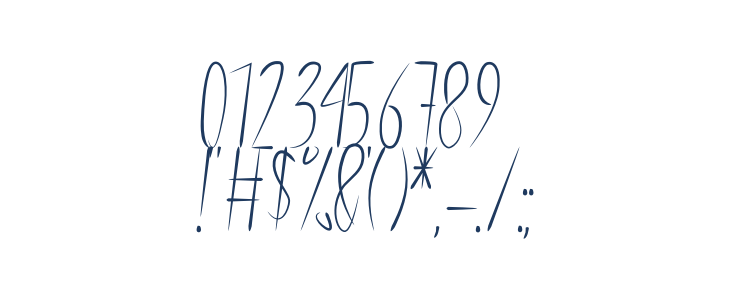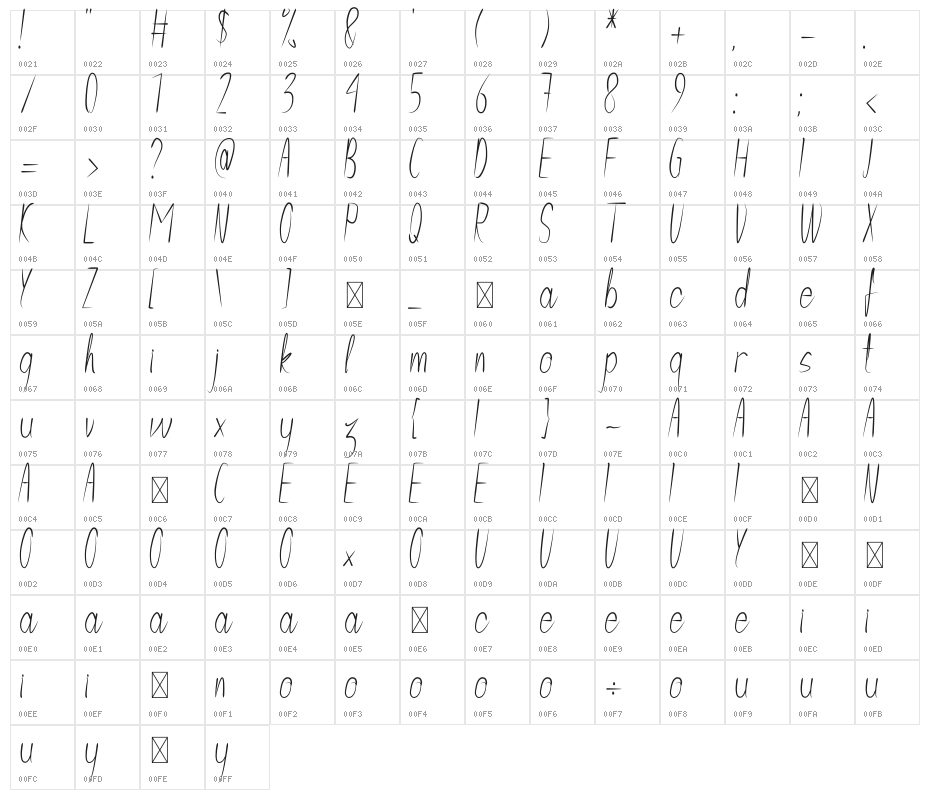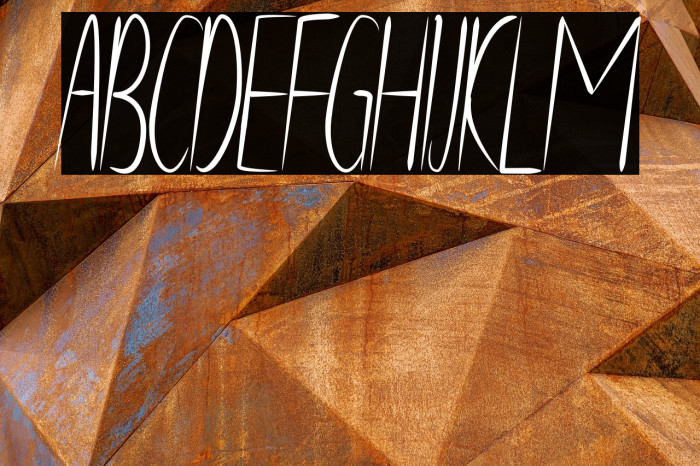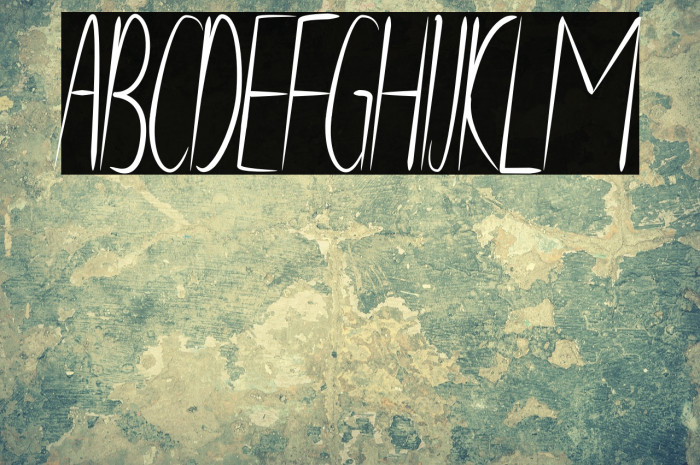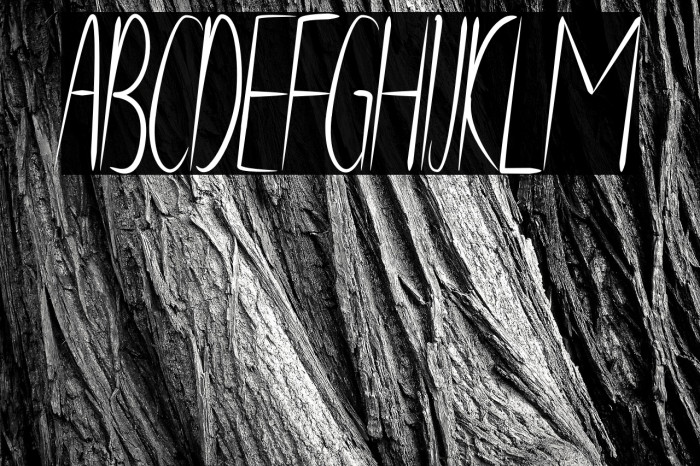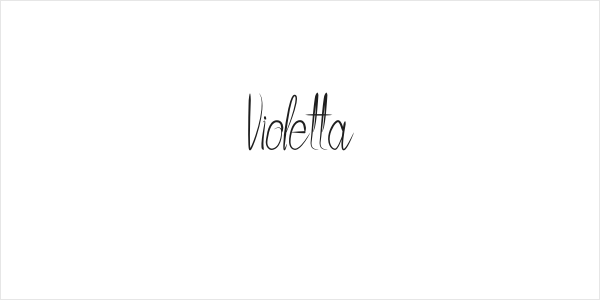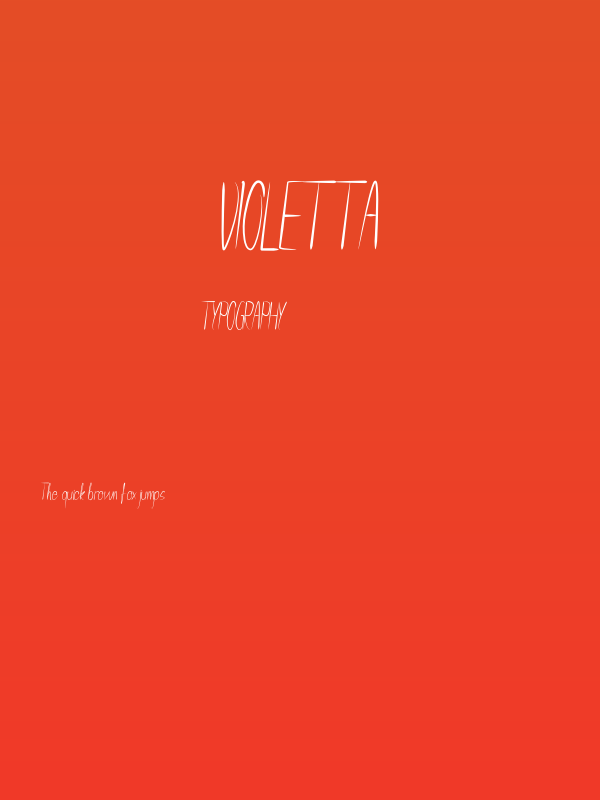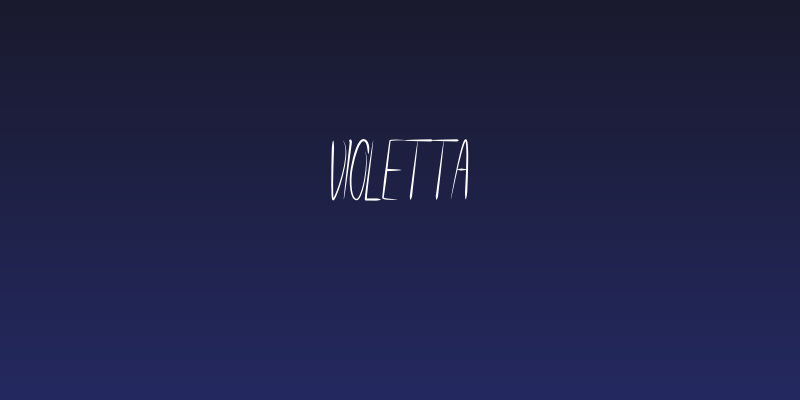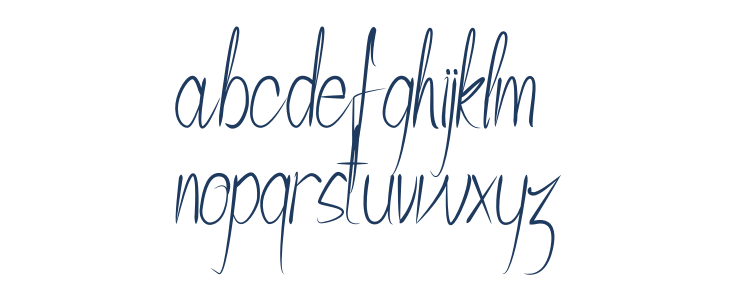
Violetta Font
Violetta Description
This font features a distinct, flowing script style with elongated, elegant strokes that create a sense of movement and grace. The uppercase letters are tall and slender, with a slight slant that adds to the dynamic feel. The lowercase letters maintain a consistent fluidity, complementing the uppercase with their smooth curves and loops. Numbers and special characters follow the same stylistic approach, ensuring a cohesive look across all characters. The overall design is sophisticated and artistic, making it suitable for projects that require a touch of elegance and flair.
| Proposed Projects | Ideal for wedding invitations, elegant branding, artistic posters, and high-end product packaging. |